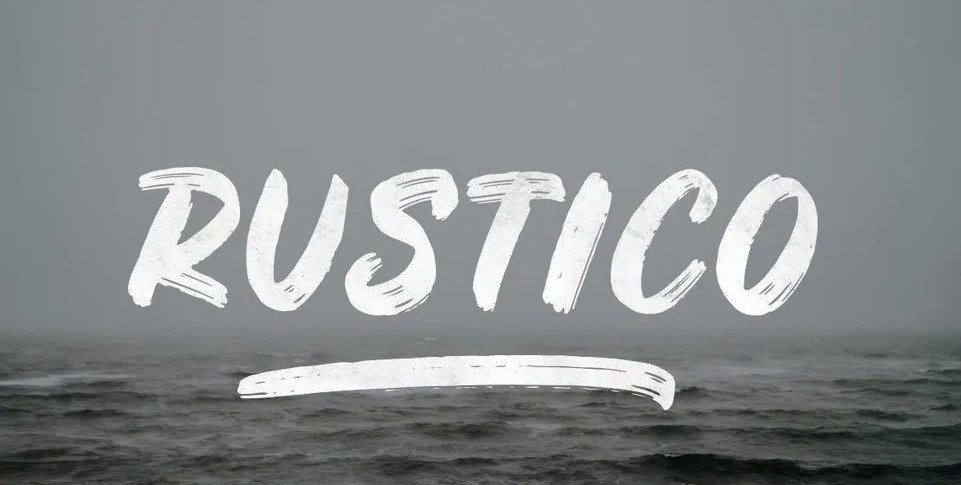
Here is the Rustico Font, a brush typeface released by Hustle Supply Co. This all-caps font can deliver genuine brush texture and a italicized style.
This is a great font that will allow you to provide a bold look to your content and also with the countryside font it can be used in marketing and brand promotion and also for other projects.
This is a great revolutionary typeface family that contains 4 different textual content styles. The unusual design of this typeface provides a great look and provides a great representative of the design.
Rustico Font is a great font family that has many alternative available inside google fonts. This is a script oraqle typeface that is available for free download and or free personal use.
View of Rustico Font
So this simply a high-quality alternative for legitimate obligations. Because its 666 glyphs cowl almost all varieties of designs from small to large responsibilities. And additionally capacity with the combination of various show fonts. Here is a sample of this great font.
Rustico Font View
Use this bold and regular typeface that has vintage patterns, 45catchwords, swash numerals, and lining numerals.